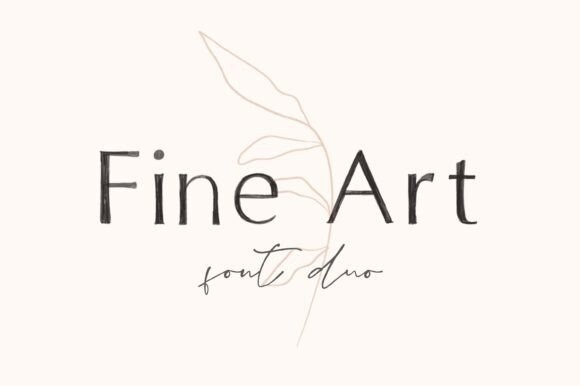
Fine Art Duo Font
Fine Art Duo Font is an aesthetic font duo. Hand-painted & elegant design. Perfectly suited to logo, branding, signature, wedding cards, packaging design, stationery, website design, and more.